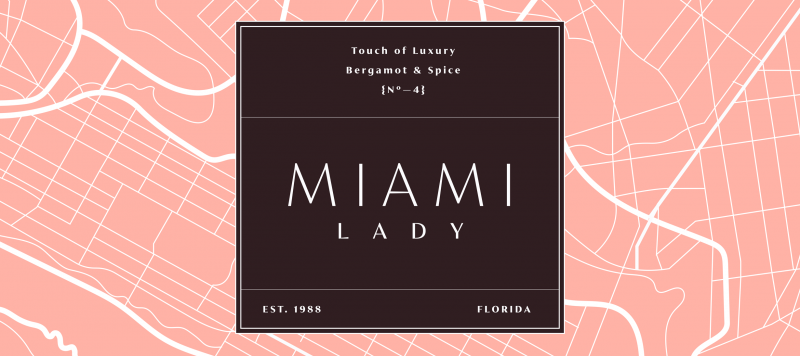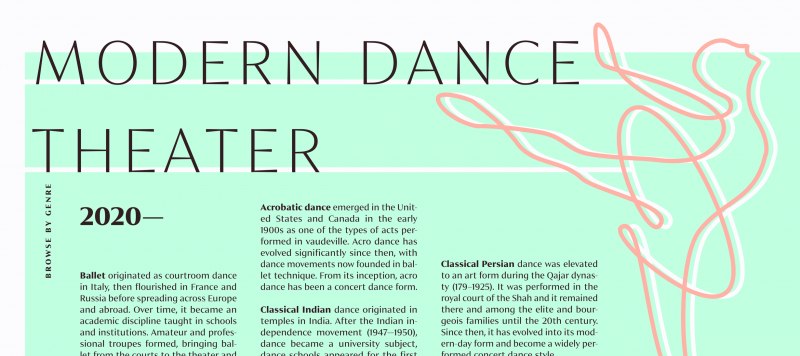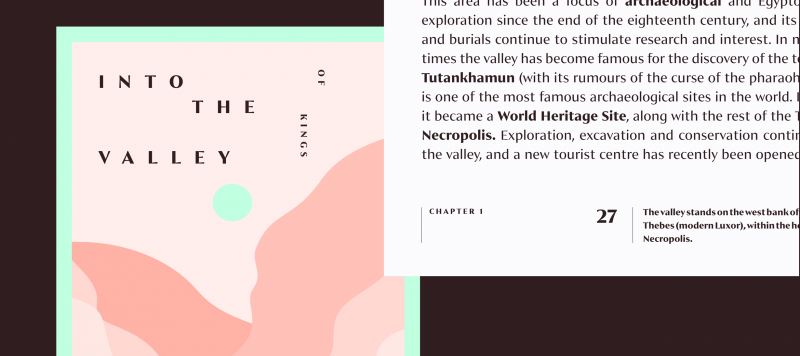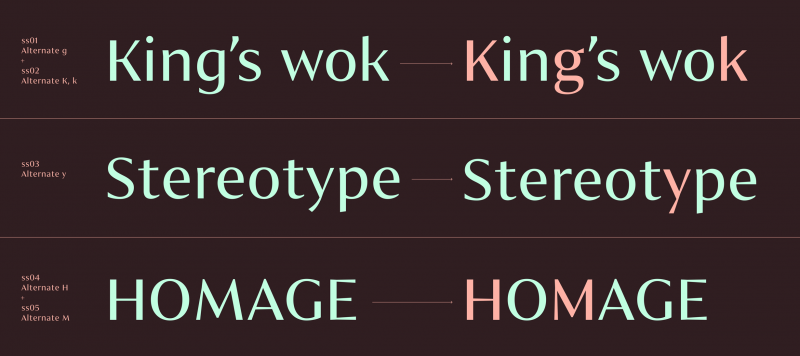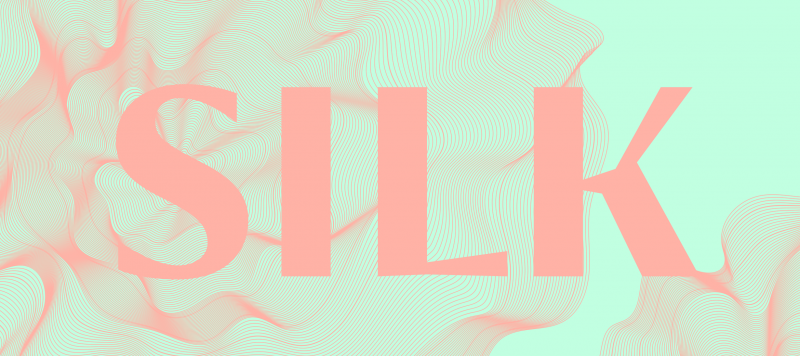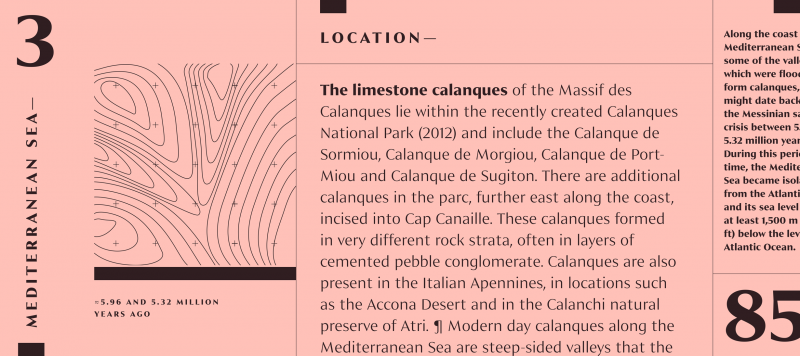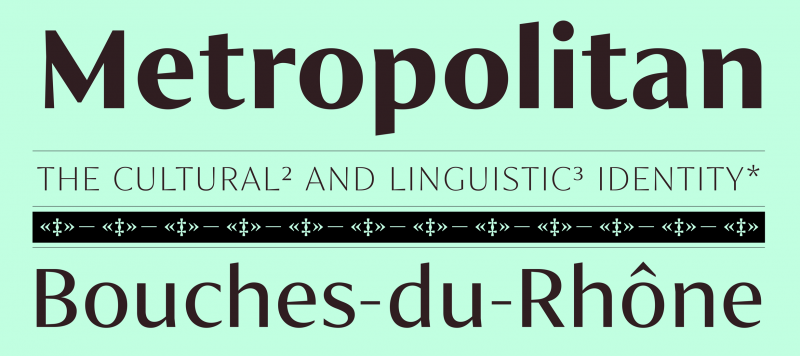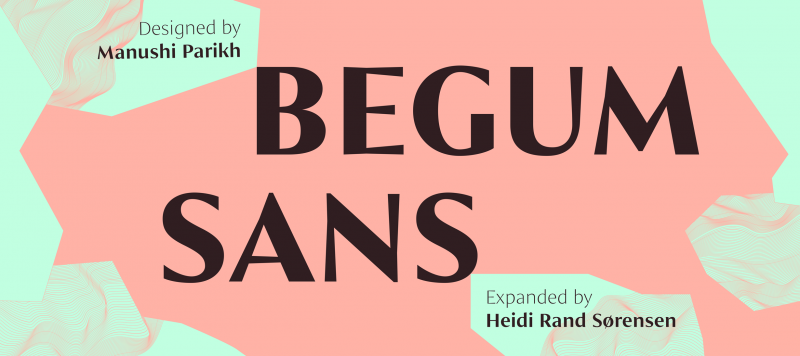
Begum Sans is a high-contrast design. Its letterforms feature horizontal strokes that flair outwards and look a bit like wedges; this is particularly prominent in the typeface’s capital letters. The feature has a long tradition in lettering, which even predates typography: similar wedge-shaped horizontal strokes were prominent features on Florentine inscriptional lettering during the Renaissance. Even though Begum Sans is a display face, its use isn’t limited to headlines. The typeface’s proportions offer possibilities for many kinds of shorter-length texts, i.e., call-outs, packaging design and the multi-line article introductions that are common in print and on screen. Pair Begum Sans with its matching display serif face Begum. Both Begum and Begum Sans were designed in India by Manushi Parikh.
| Family Name | Begum Sans |
| Designer(s) | Heidi Rand Sørensen, Manushi Parikh |